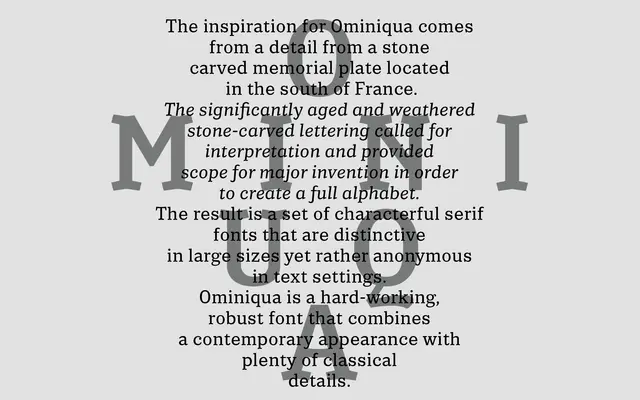
Ominiqua
A contemporary serif drawn from a stone-carved memorial plate in southern France, spanning five weights with matching italics.
Inspired by a lapidary inscription found in the south of France, the design pairs classical serif details with a contemporary sensibility intended for general-purpose use. Ten styles cover Thin through Bold with matching italics, giving it enough range for editorial and branding work. The historical source lends it a quiet formality without tipping into pastiche.
The page describes it as a serif combining contemporary design with classical details, drawn from a stone-carved memorial inscription, placing it in the broad contemporary serif category with lapidary influences.